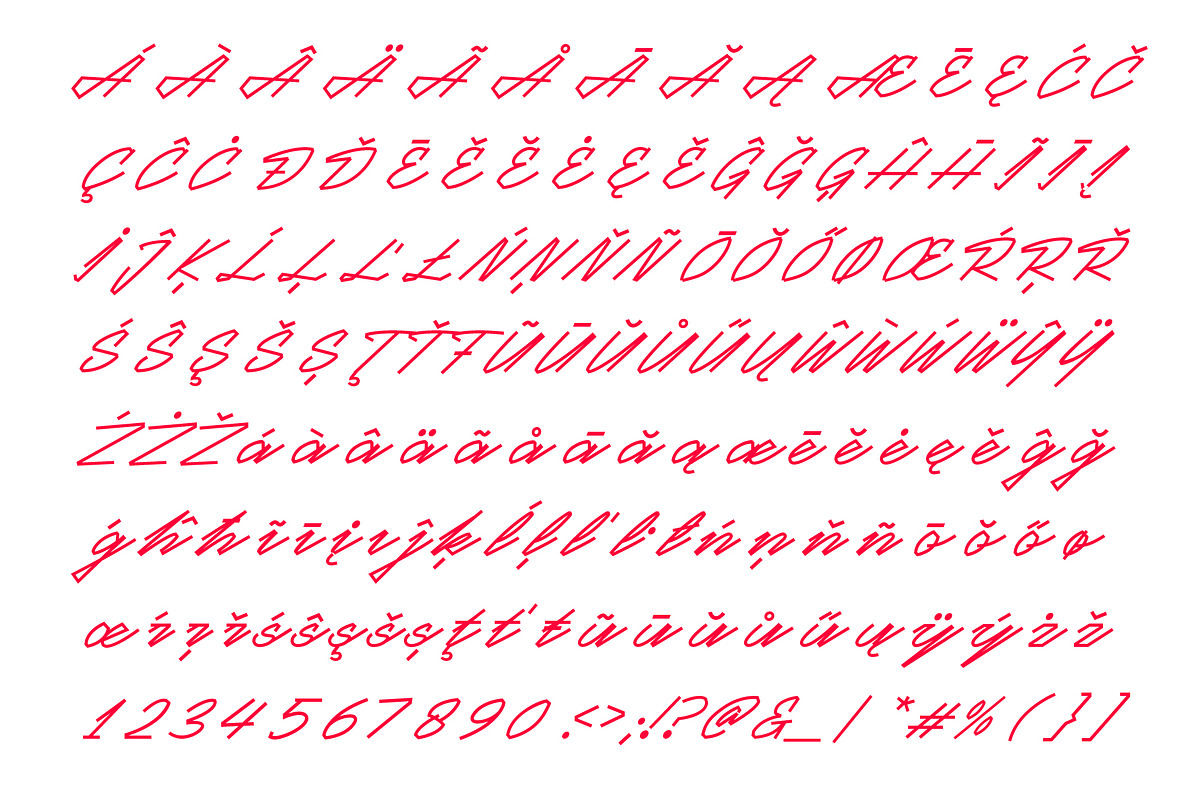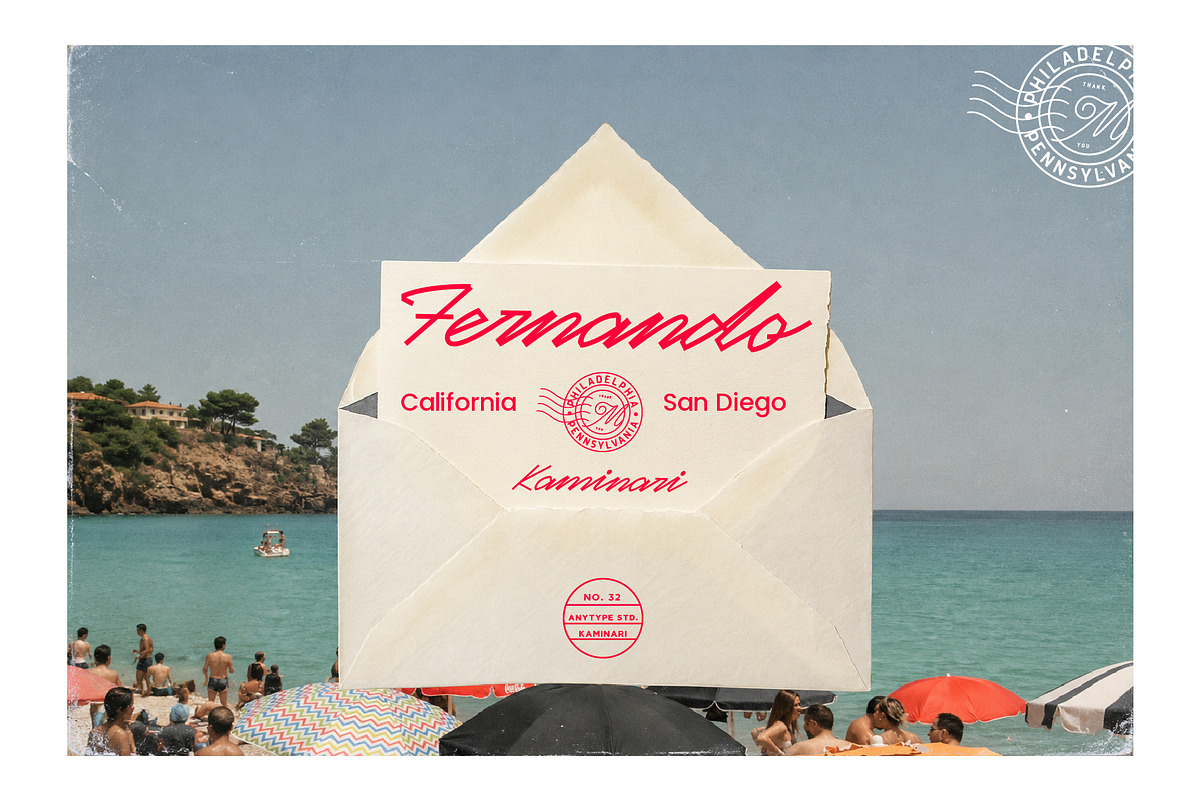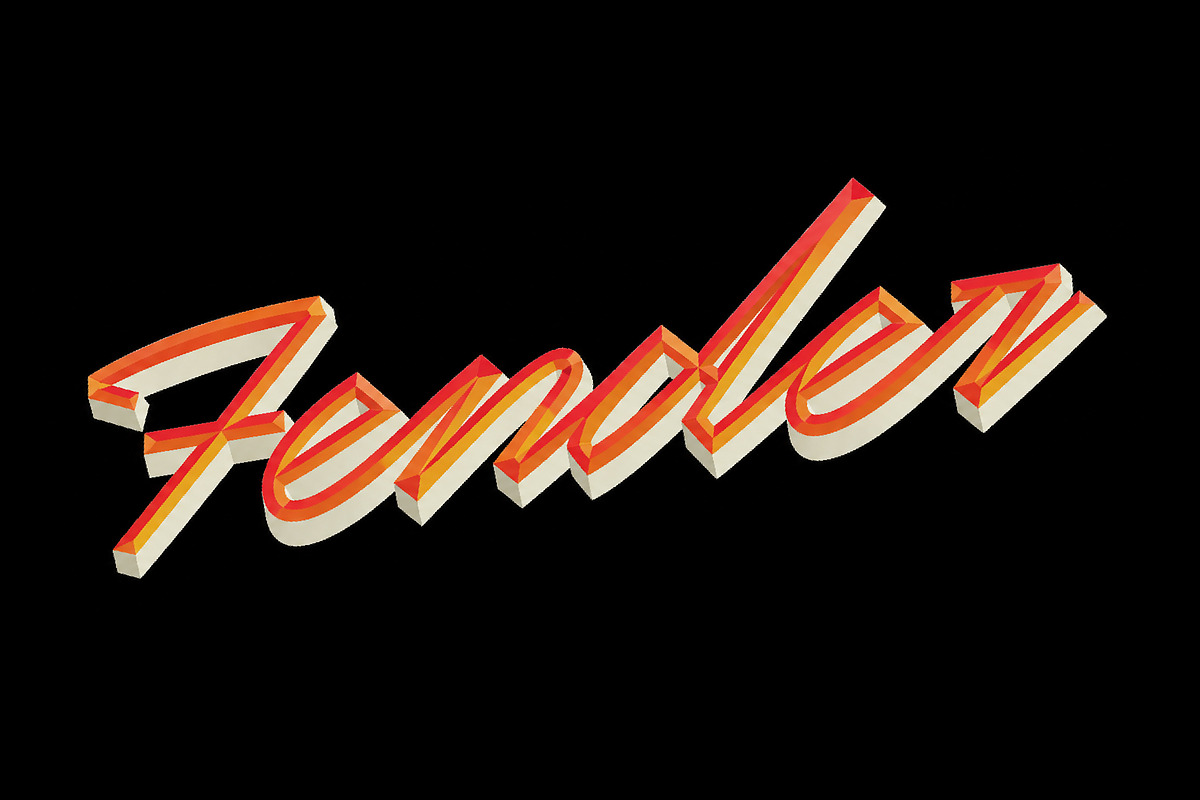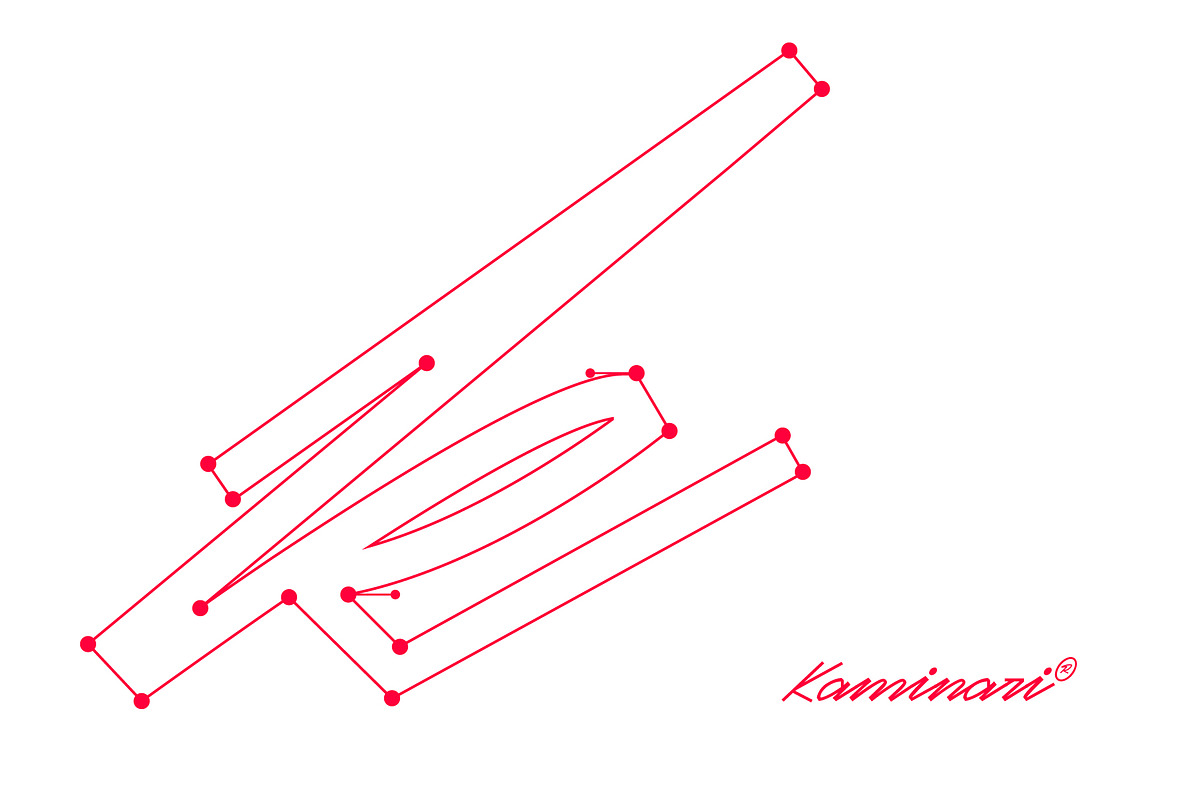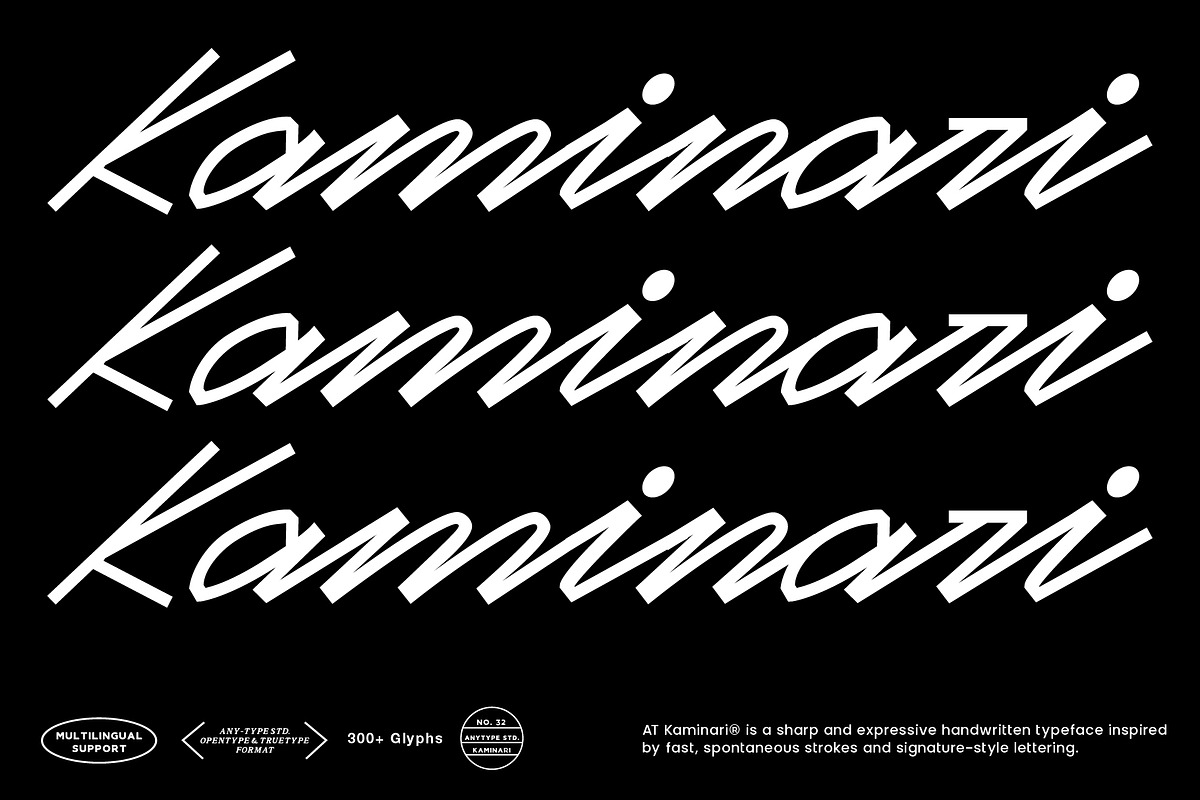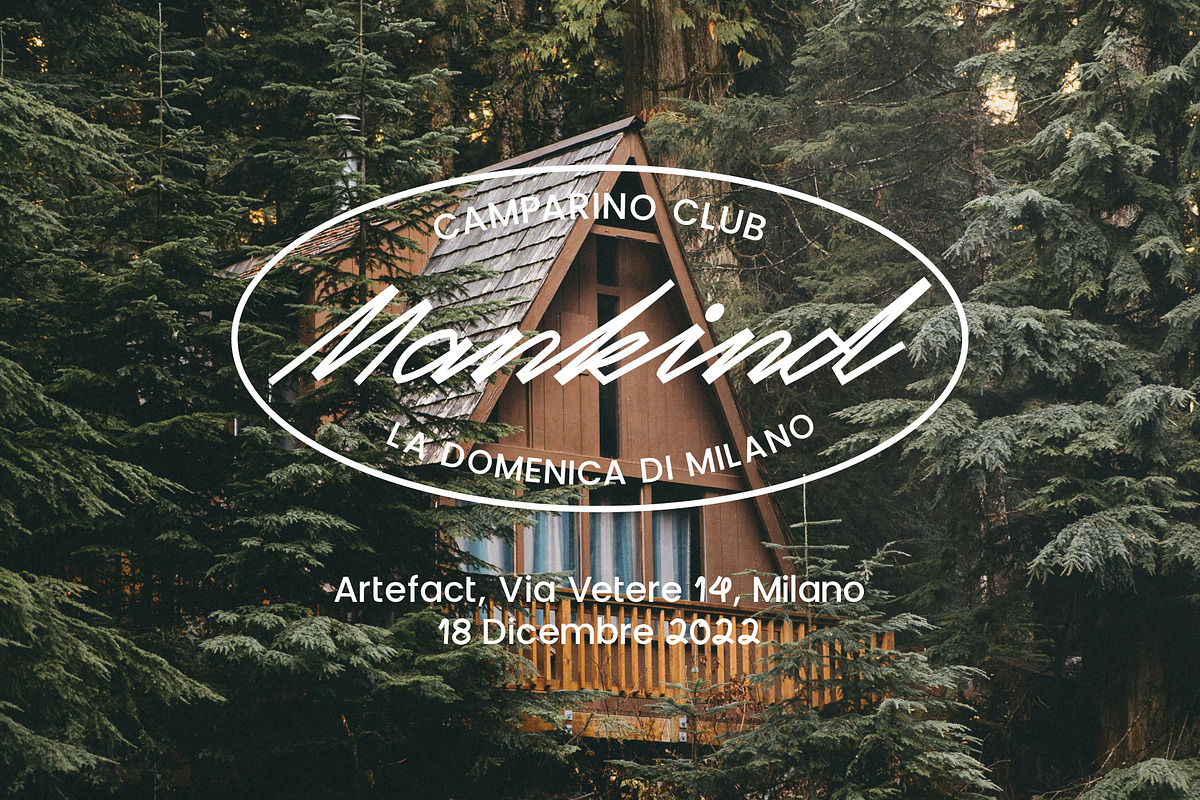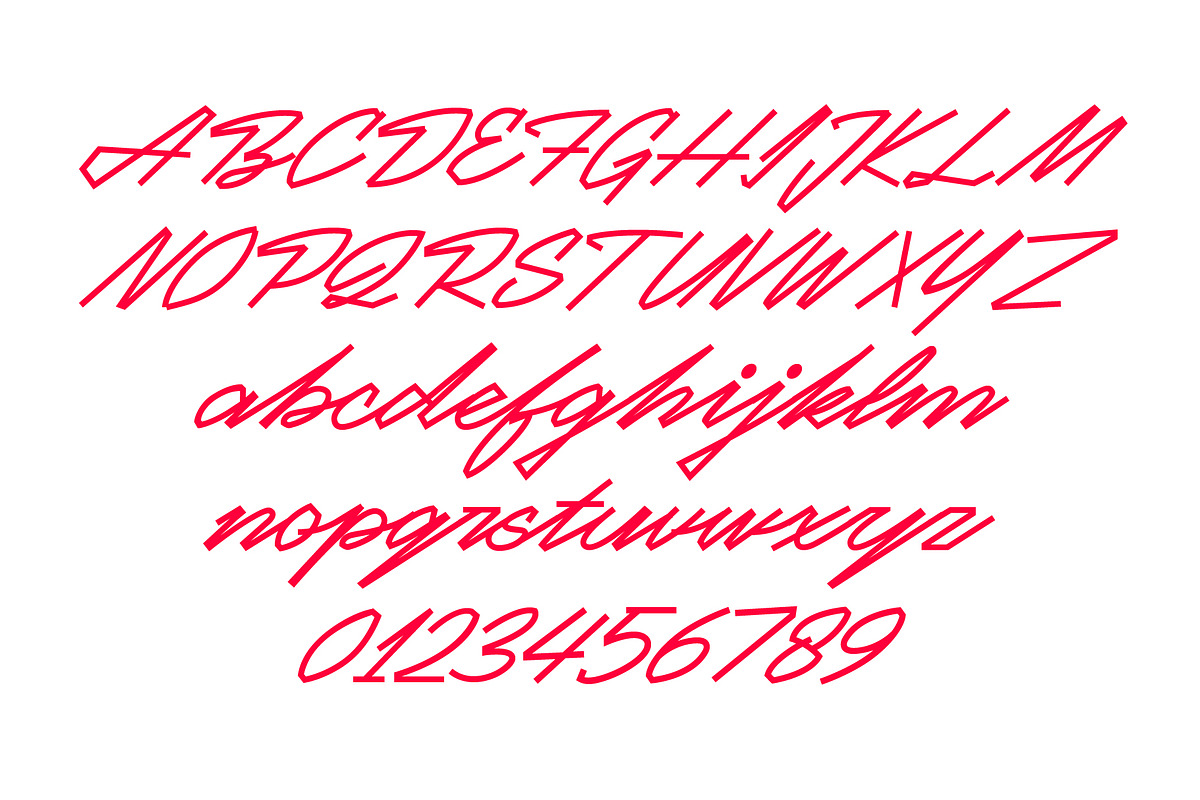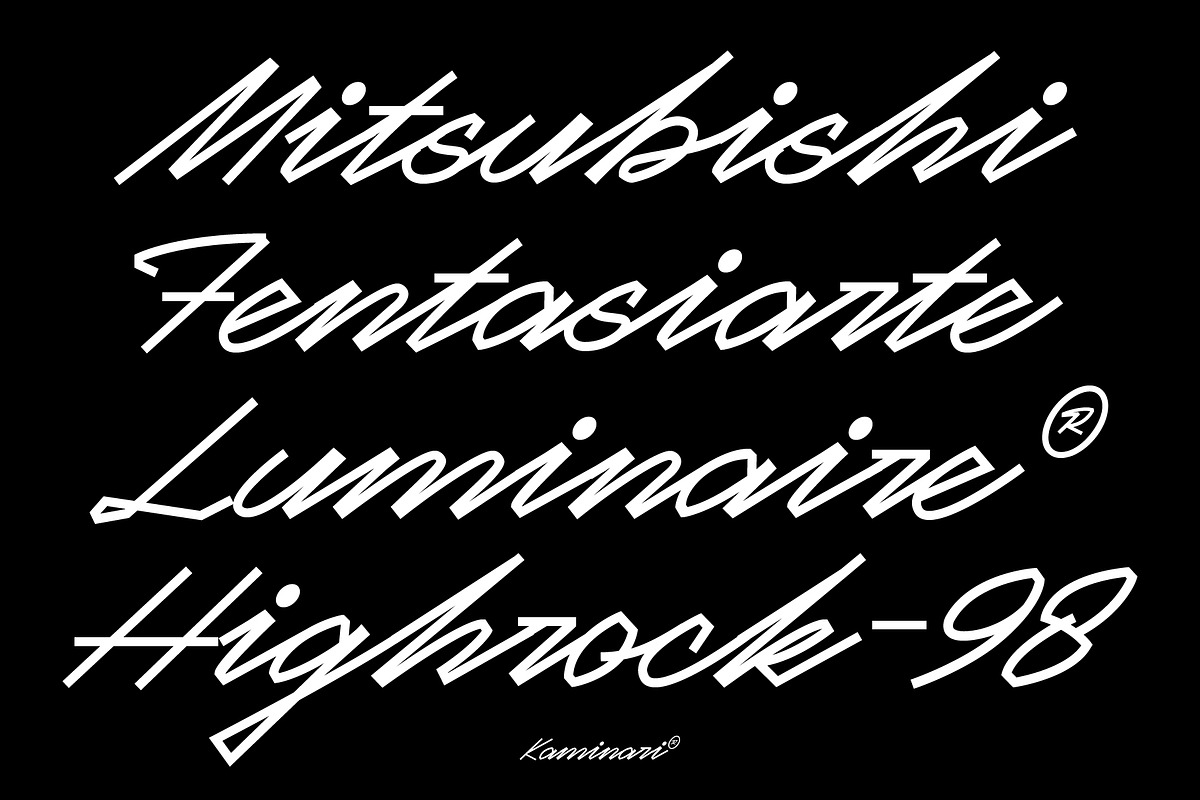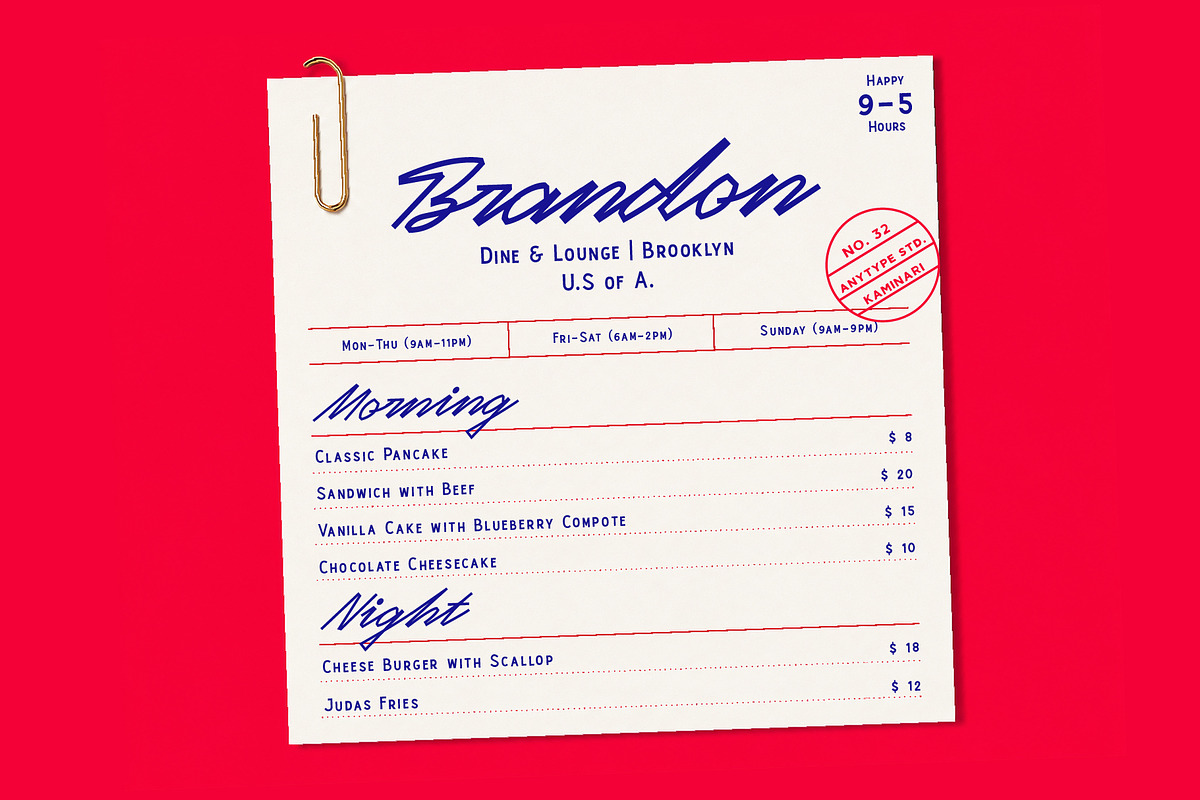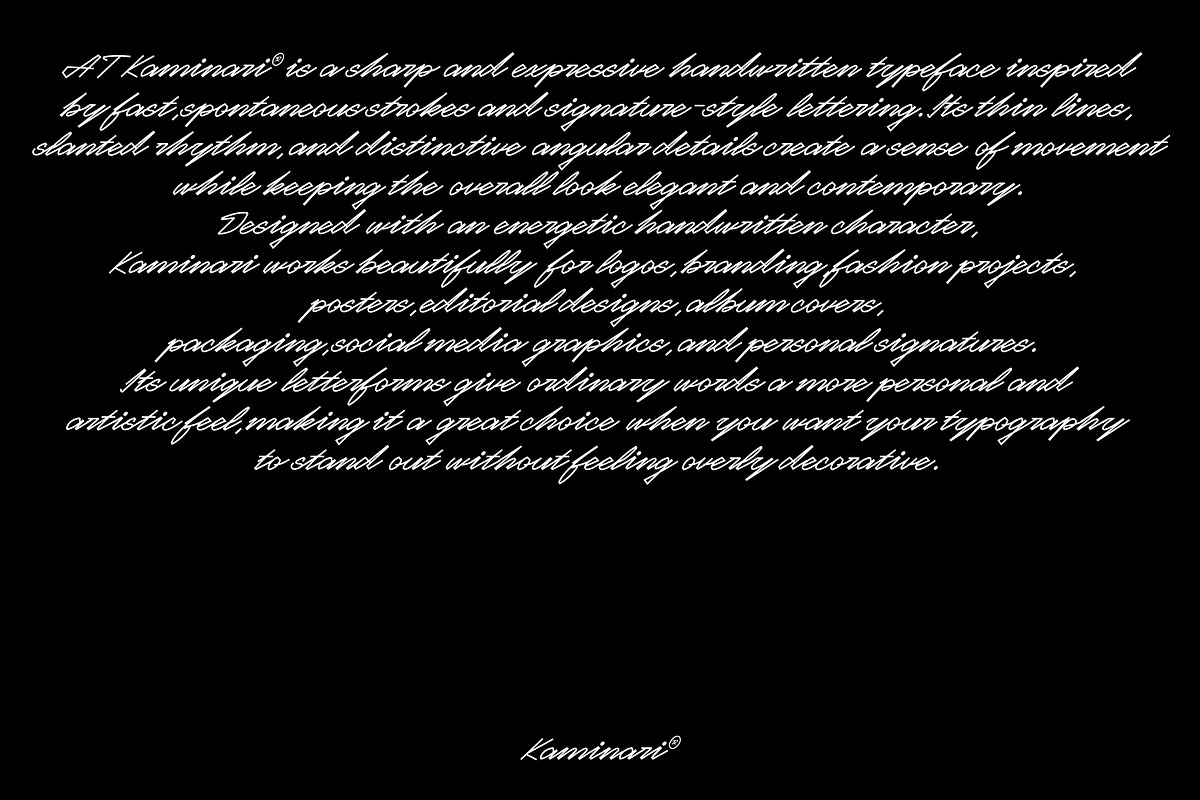
AT Kaminari Script
AT Kaminari — Signature Lines in Motion
AT Kaminari is a sharp and expressive handwritten typeface inspired by fast, spontaneous strokes and signature-style lettering. Its thin lines, slanted rhythm, and distinctive angular details create a clear sense of movement while keeping the overall look elegant and contemporary.
Designed with an energetic handwritten character, Kaminari works beautifully for logos, branding, fashion projects, posters, editorial designs, album covers, packaging, social media graphics, and personal signatures. Its unique letterforms give ordinary words a more personal and artistic feel, making it a strong choice when your typography needs to stand out without feeling overly decorative.
Handwritten italic style
Suitable for display and branding use
AT Kaminari is made for bold personalities, creative identities, and designs that need a distinctive handwritten touch.